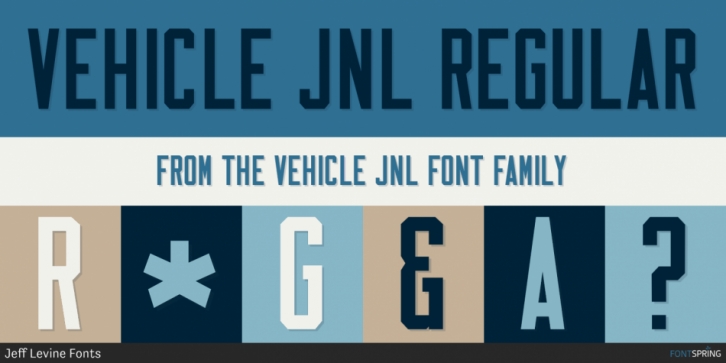
Vehicle JNL Font
Vehicle JNL Font is perfect for automotive dealership branding, car show promotional materials, racing team identities, motorcycle club signage, transport company logos, garage and mechanic shop branding, vintage vehicle restoration marketing, automotive parts packaging, and speed-themed event campaigns.
What makes Vehicle JNL Font exciting is its dynamic mechanical character combined with powerful automotive aesthetics that captures the essence of speed, precision, and engineering excellence. The font's bold letterforms and industrial-inspired details deliver commanding road presence while maintaining exceptional visibility, making it the ideal choice for automotive brands seeking to communicate performance, reliability, and mechanical expertise to enthusiasts and professional drivers.
Vehicle JNL Font family includes multiple weights with automotive decorative elements, speed-inspired flourishes, and mechanical styling variations, providing comprehensive design solutions for creating authentic automotive branding and transportation industry marketing across diverse vehicle-related applications.
This powerful typeface embodies the spirit of automotive culture and mechanical innovation in every precisely engineered letterform. Vehicle JNL Font Free Download presents automotive businesses and transportation brands with an exceptional opportunity to develop visual identities that resonate with vehicle enthusiasts and professional drivers. Whether you're creating racing team campaigns, designing automotive service branding, or developing transportation company identities, this font family delivers the mechanical authority needed to establish credibility in competitive automotive markets.
The industrial-strength character construction and automotive-inspired details create instant recognition among car enthusiasts while communicating performance quality and mechanical expertise. Extensive decorative elements support storytelling about automotive heritage and engineering excellence.
Vehicle JNL Font stands out through its unique ability to communicate both power and precision simultaneously. This exceptional typeface doesn't just label automotive products—it creates emotional connections with speed and performance, making it an invaluable resource for automotive brands competing in markets where passion for vehicles and mechanical excellence drive consumer loyalty and purchasing decisions.